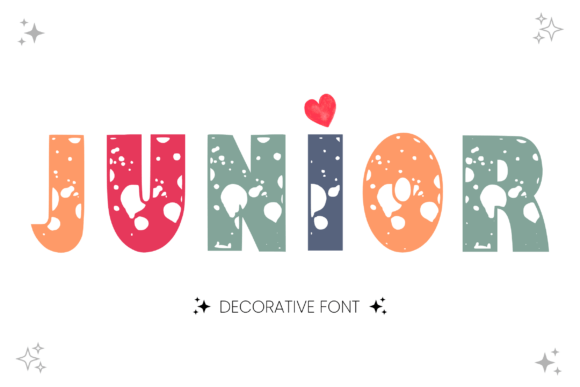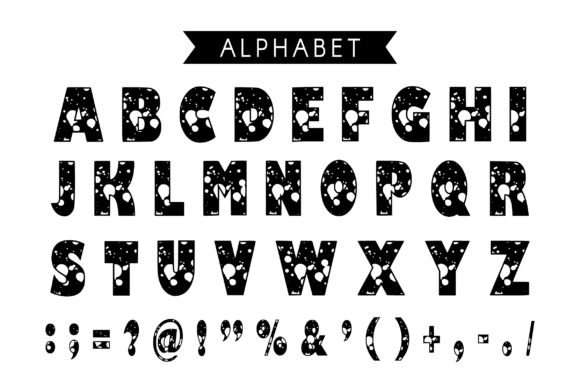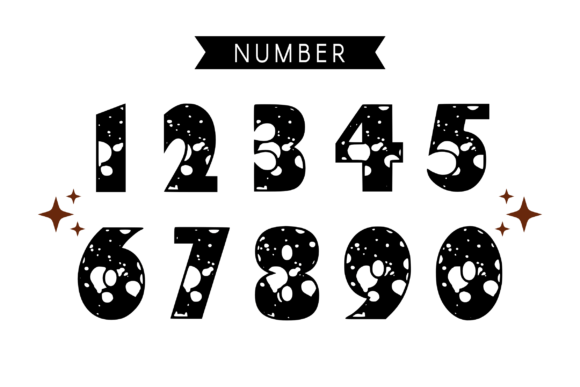
Introduction to Sidul Font
Have you ever stared at a blank page, waiting for the perfect font to bring your creative vision to life? That’s where the Sidul Font comes in – a vibrant and whimsical typeface designed to add an extra layer of excitement to your artistic projects.
With its unique dot pattern and innovative design, the Sidul Font is more than just a design resource – it’s a key to unlocking your creative potential. Whether you’re working on a free download for a personal project or collaborating with a team on a high-quality design for a client, this font is sure to elevate your work and make it stand out. And with its transparent background, you can easily integrate it into any design without distractions.
As a valuable addition to your design arsenal, the Sidul Font is perfect for anyone looking to inject some youthful energy into their creative projects – from playful prints to engaging animations and comic titles, this font is the perfect tool to unleash your artistic vision.
Key Features of Sidul Font
- Designed with a unique, elegant style, perfect for use in logos, branding, and other design projects.
- Supports a wide range of languages, including Latin, Cyrillic, and Greek scripts, making it a versatile design resource.
Honest Review: Sidul Font
One of the standout features of the Sidul Font is its high-quality design. The transparent background gives me the flexibility to overlay it on any image or color scheme, making it a valuable resource for any design project.
Here are some things that work well with the Sidul Font:
- ✨ Transparent background for easy overlaying
- ⚠️ Limited font styles and variations
Overall, I’m really impressed with the Sidul Font. It’s a great design resource that’s perfect for small-scale creative projects or personal branding. With its high-quality design and transparent background, it’s a must-have for any designer looking to add a touch of elegance to their work.
Getting the Most Out of Sidul Font
Experiment with different font sizes, colors, and styles to get the most out of the Sidul Font. Combine it with other design elements to create a unique and eye-catching design. The transparent background of the font also makes it ideal for layering and compositing.
The Sidul Font is perfect for designers working on creative projects, such as logos, typography, social media graphics, and posters. Its high-quality design and transparent background make it an ideal resource for designers and artists.